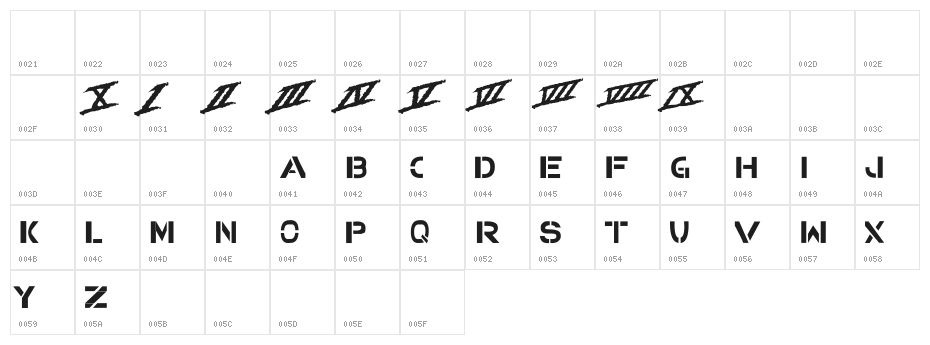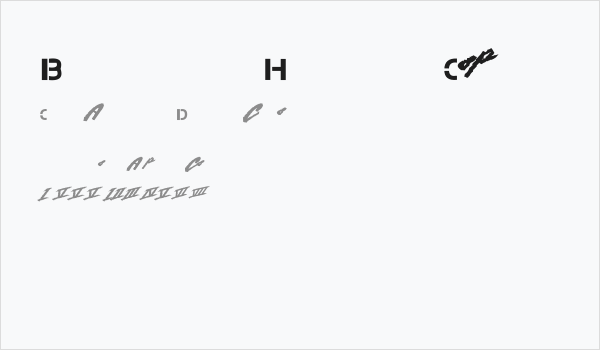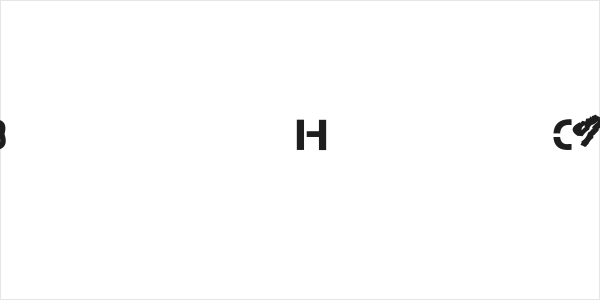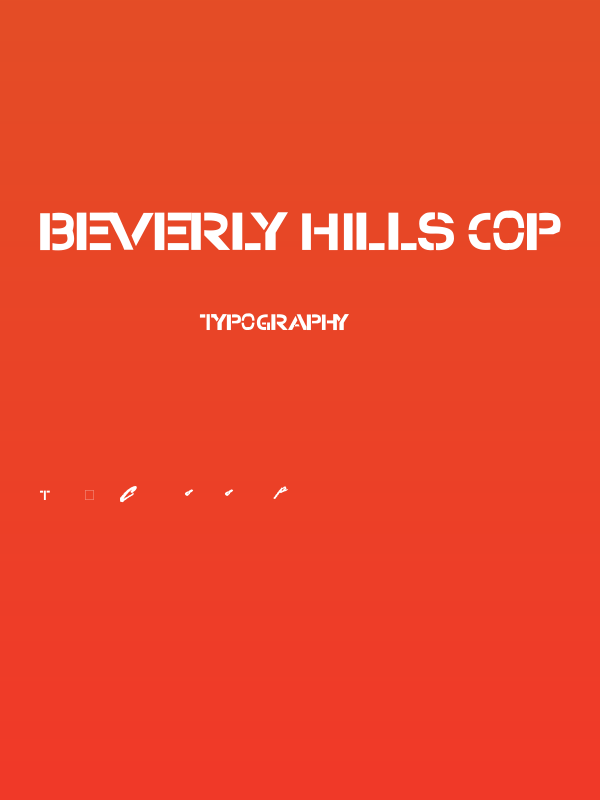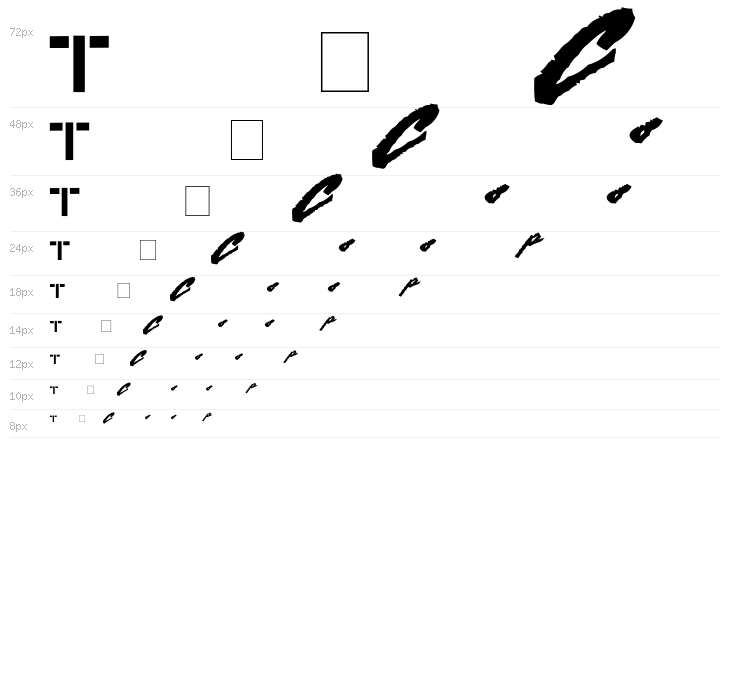
Beverly Hills Cop Font
Beverly Hills Cop Description
This font features a bold and dynamic style with a strong geometric influence. The uppercase letters are characterized by thick, angular strokes and a stencil-like appearance, creating a sense of movement and energy. The lowercase letters are more fluid and script-like, offering a sharp contrast to the uppercase. The numerals are presented in a Roman numeral style, adding a classic touch to the otherwise modern design. The special characters maintain the bold and angular aesthetic, ensuring consistency across the font. This font's unique blend of styles makes it versatile for various design applications.